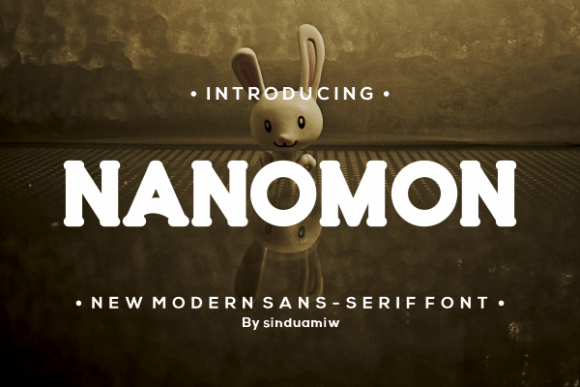
Introducing Nanomon Font, the ultimate font for your business website! Created by the talented sinduamiw, this bold and assertive sans serif font is here to revolutionize your design game. With its captivating appeal and endless possibilities, Nanomon Font is a must-have for any creative project.
Imagine a font that effortlessly commands attention and leaves a lasting impression on your audience. Nanomon Font does exactly that! Its powerful and confident appearance will instantly captivate your viewers, ensuring that your message is delivered with impact. Whether you're creating a logo, website, or marketing materials, this font will make your brand stand out from the competition.
Nanomon Font is not just visually stunning, but it also possesses incredible versatility. Its clean and modern lines make it ideal for a wide range of industries, from technology and finance to fashion and beauty. This font seamlessly adapts to any context, allowing you to convey professionalism, elegance, or a touch of edginess effortlessly.
But Nanomon Font isn't just about aesthetics; it's about connecting with your audience on an emotional level. This font exudes confidence, strength, and reliability, traits that are essential for any successful business. By incorporating Nanomon Font into your designs, you'll instantly establish trust and credibility with your customers, encouraging them to engage with your brand.
In addition to its visual impact, Nanomon Font is also incredibly user-friendly. Its legibility ensures that your message is easily understood, even at smaller sizes. Say goodbye to blurry or distorted text – with Nanomon Font, every word will be crystal clear and visually appealing.